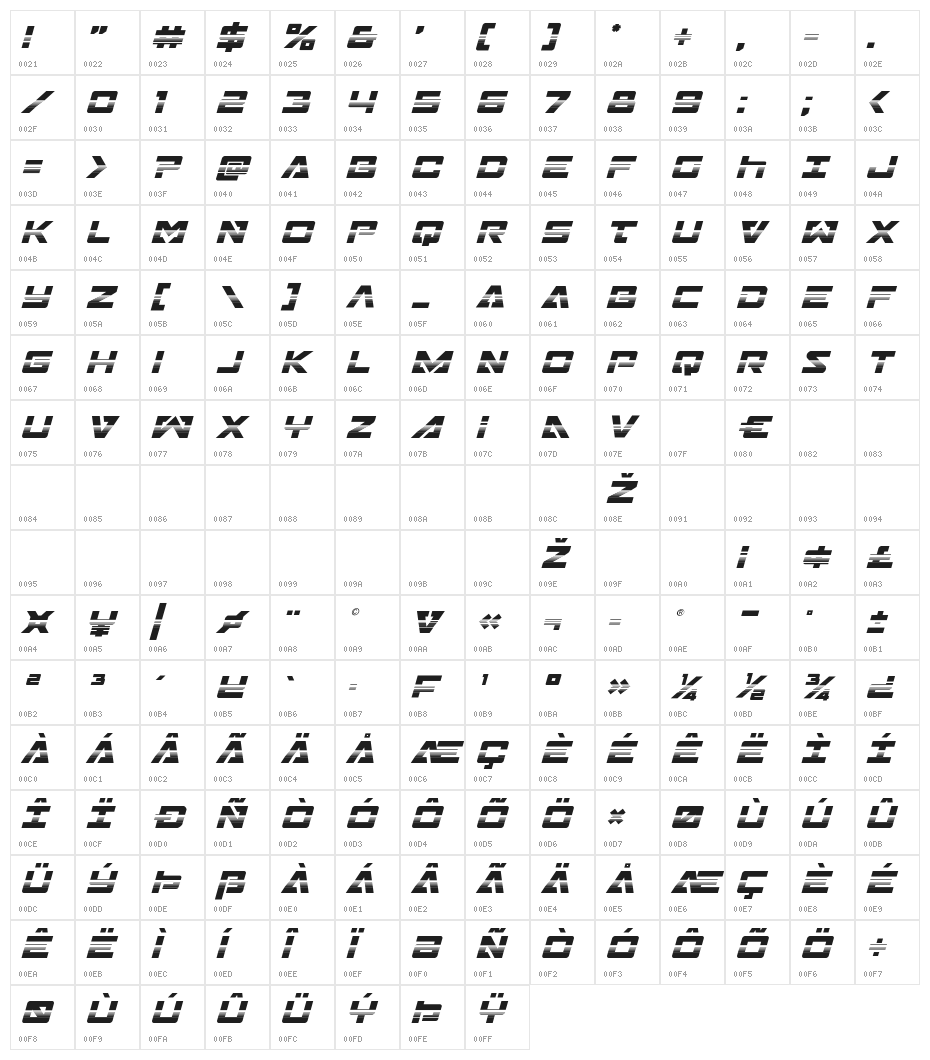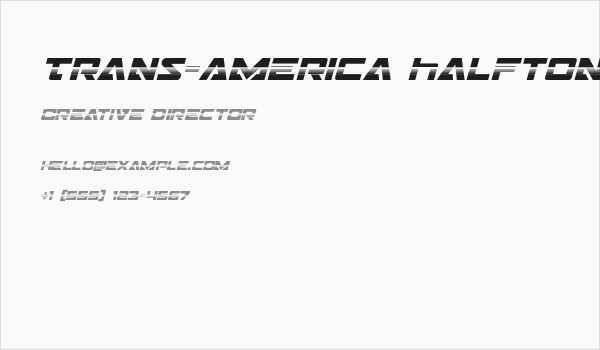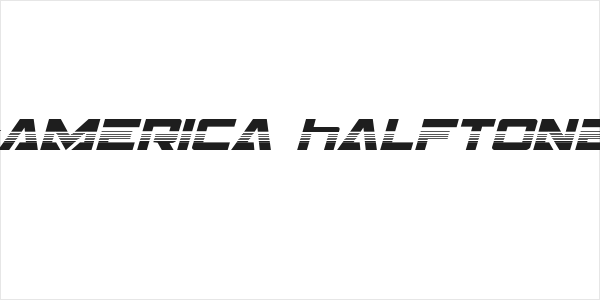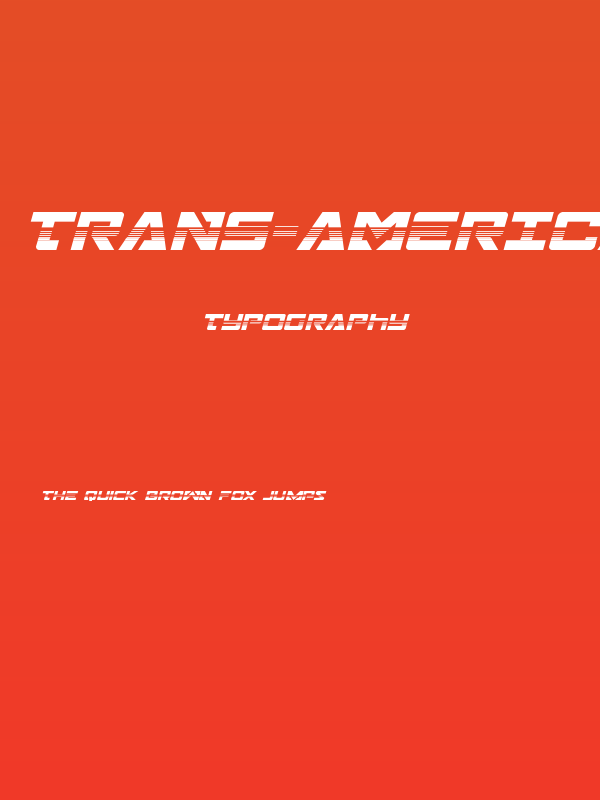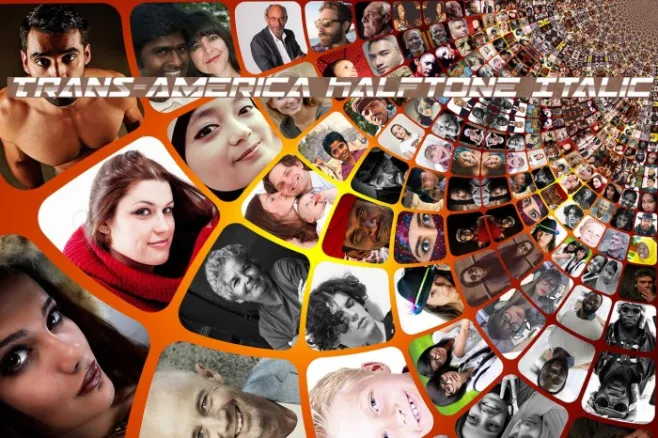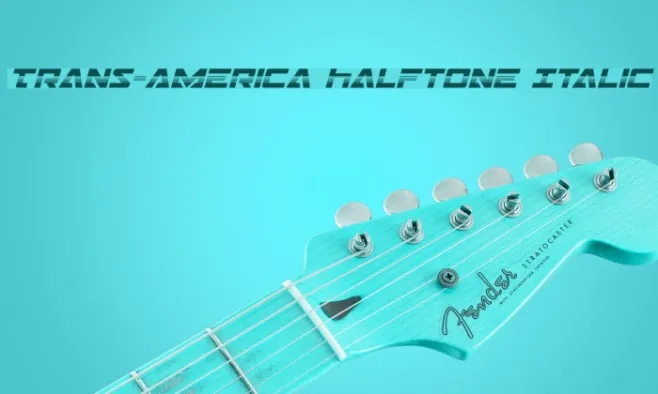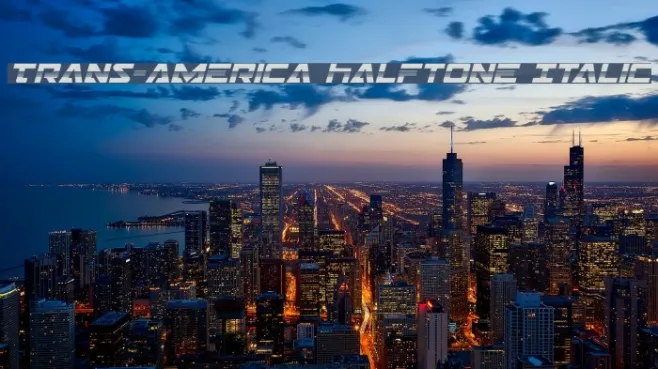
Trans-America Halftone Italic Font
Trans-America Halftone Italic Description
This font features a dynamic and futuristic design with a halftone effect that gives it a sense of movement and energy. The italicized characters are bold and angular, with a distinct slant that enhances the sense of speed and modernity. The horizontal lines within each character create a unique texture, making it stand out in any design. The uppercase and lowercase letters maintain a consistent style, while the numbers and special characters are equally bold and striking. This font is ideal for projects that require a modern and edgy look.
| Overall Style | Futuristic, Dynamic |
| Proposed Projects | Ideal for sports branding, tech-related designs, futuristic posters, and dynamic advertising. |